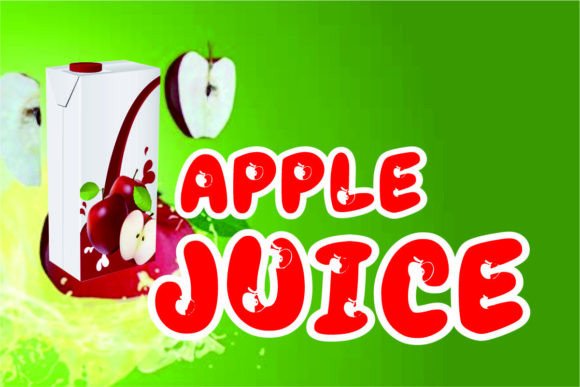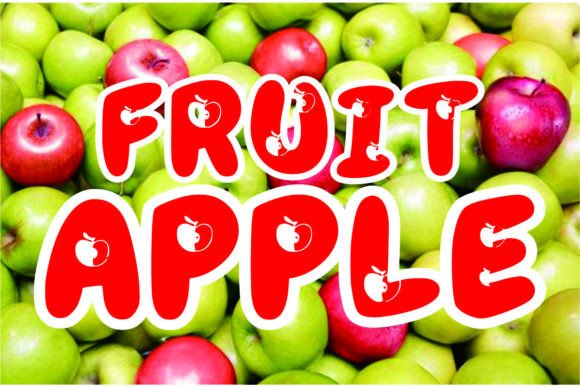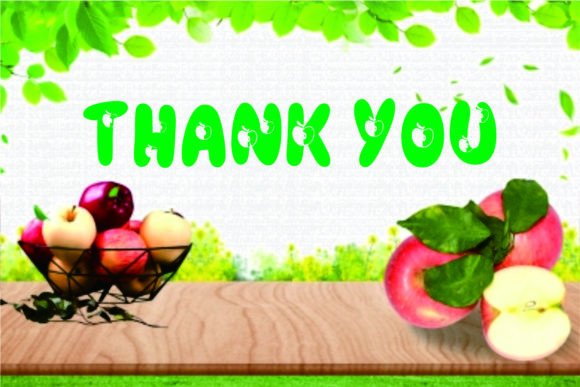
Introducing Apple Font: The Fun and Friendly Display Font for Creative Designs
Are you looking for a font that can add a touch of playfulness and friendliness to your designs? Look no further than Apple Font, a casual and easy-to-read display font that’s perfect for a wide range of creative projects. With its unique aesthetic value, Apple Font is ideal for designers and crafters who want to add a bit of whimsy to their work.
The Characteristics of Apple Font
Apple Font is a display font that’s designed to be fun and approachable. Its casual, handwritten style makes it perfect for designs that require a personal touch. The font features:
- Easy-to-read characters: Apple Font is designed to be clear and legible, making it perfect for use in a variety of designs, from signage to digital media.
- Unique aesthetic value: The font’s playful style sets it apart from more traditional fonts, making it perfect for designers who want to add a bit of personality to their work.
- Casual, handwritten style: Apple Font’s handwritten style gives it a friendly, approachable feel that’s perfect for designs that require a personal touch.
Uses for Apple Font
Apple Font is a versatile font that can be used in a wide range of designs, including:
- Juice-themed designs: The font’s playful style makes it perfect for designs that require a fun and refreshing feel, such as juice labels or advertisements.
- Digital media: Apple Font is perfect for use in digital media, such as social media graphics, blog posts, and website headers.
- Signage: The font’s easy-to-read characters make it perfect for use in signage, such as store signs, menus, and flyers.
- Crafting projects: Apple Font is a great choice for crafters who want to add a personal touch to their projects, such as scrapbooking, card making, and DIY gifts.
Tips for Using Apple Font
Here are a few tips for using Apple Font in your designs:
- Use it sparingly: Apple Font is a display font, so it’s best to use it sparingly to add emphasis to your designs.
- Pair it with other fonts: Apple Font can be paired with other fonts to create a unique and interesting look. Try pairing it with a sans-serif font for a bold and modern look.
- Experiment with colors: Apple Font looks great in a variety of colors, so don’t be afraid to experiment and find the perfect color for your design.
Apple Font is a fun and friendly display font that’s perfect for designers and crafters who want to add a personal touch to their work. With its easy-to-read characters, unique aesthetic value, and casual, handwritten style, Apple Font is a versatile font that can be used in a wide range of designs. Whether you’re creating juice-themed designs, digital media, signage, or crafting projects, Apple Font is a great choice. So why not give it a try and see what amazing designs you can create?